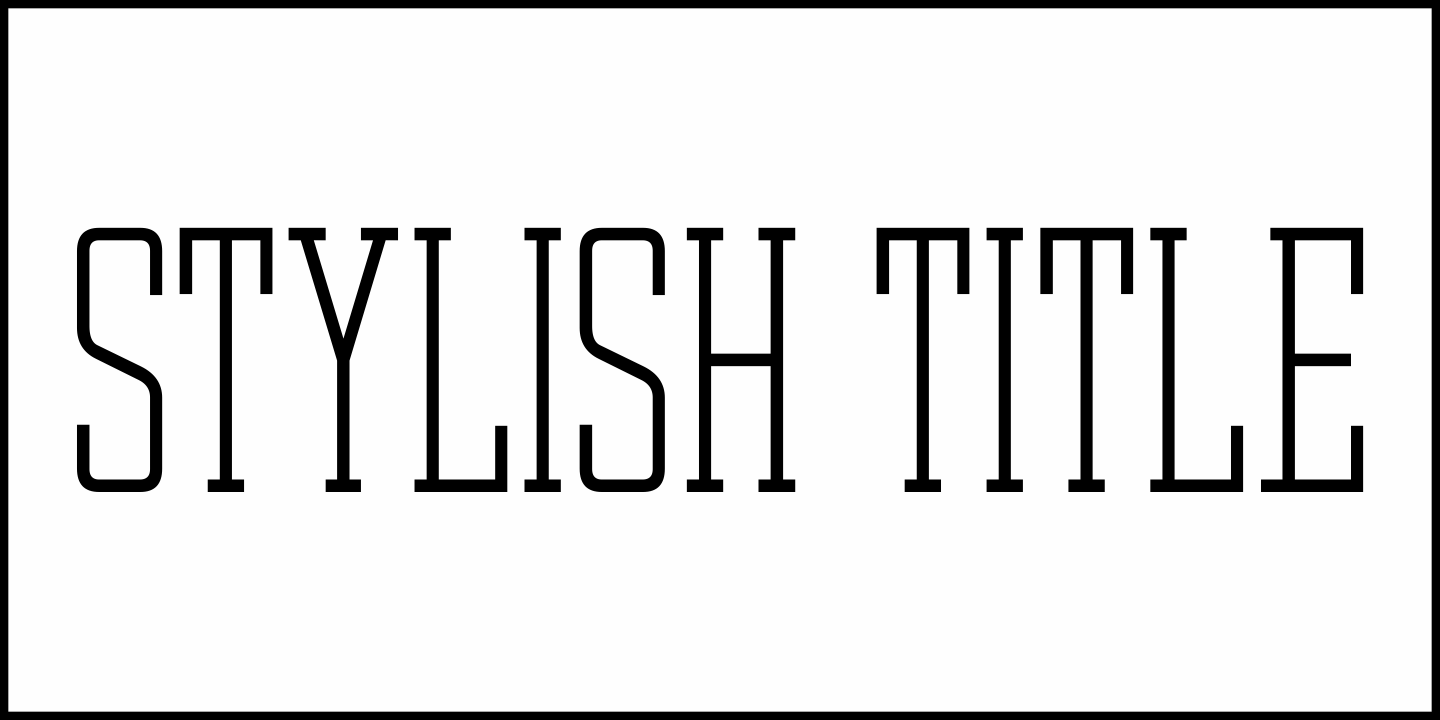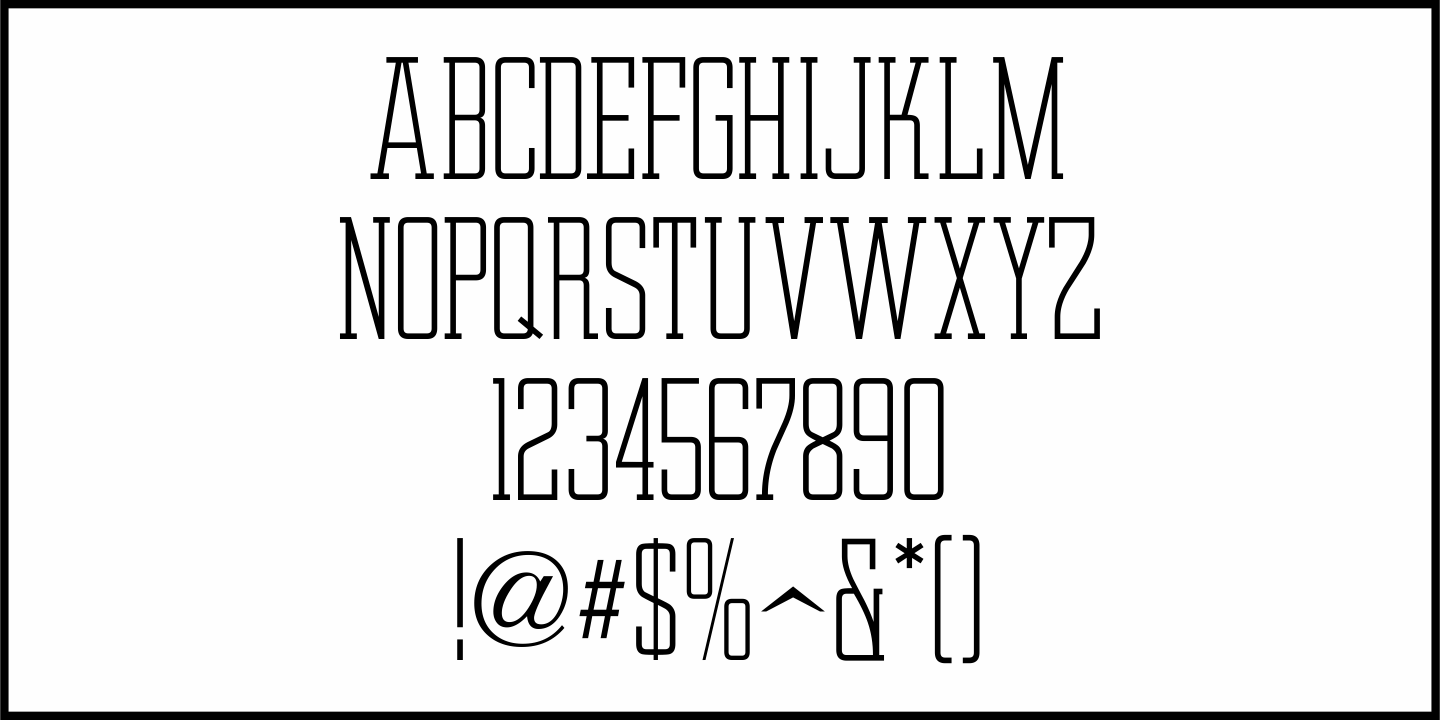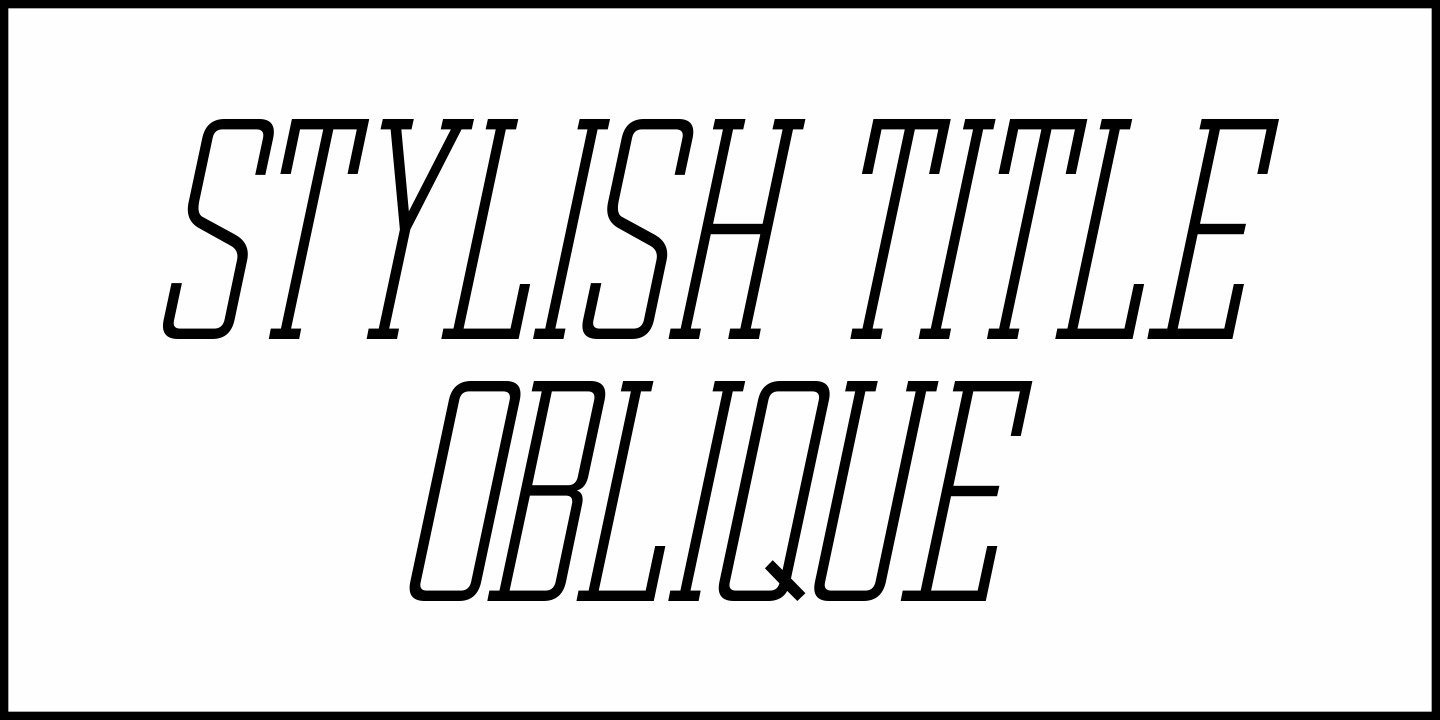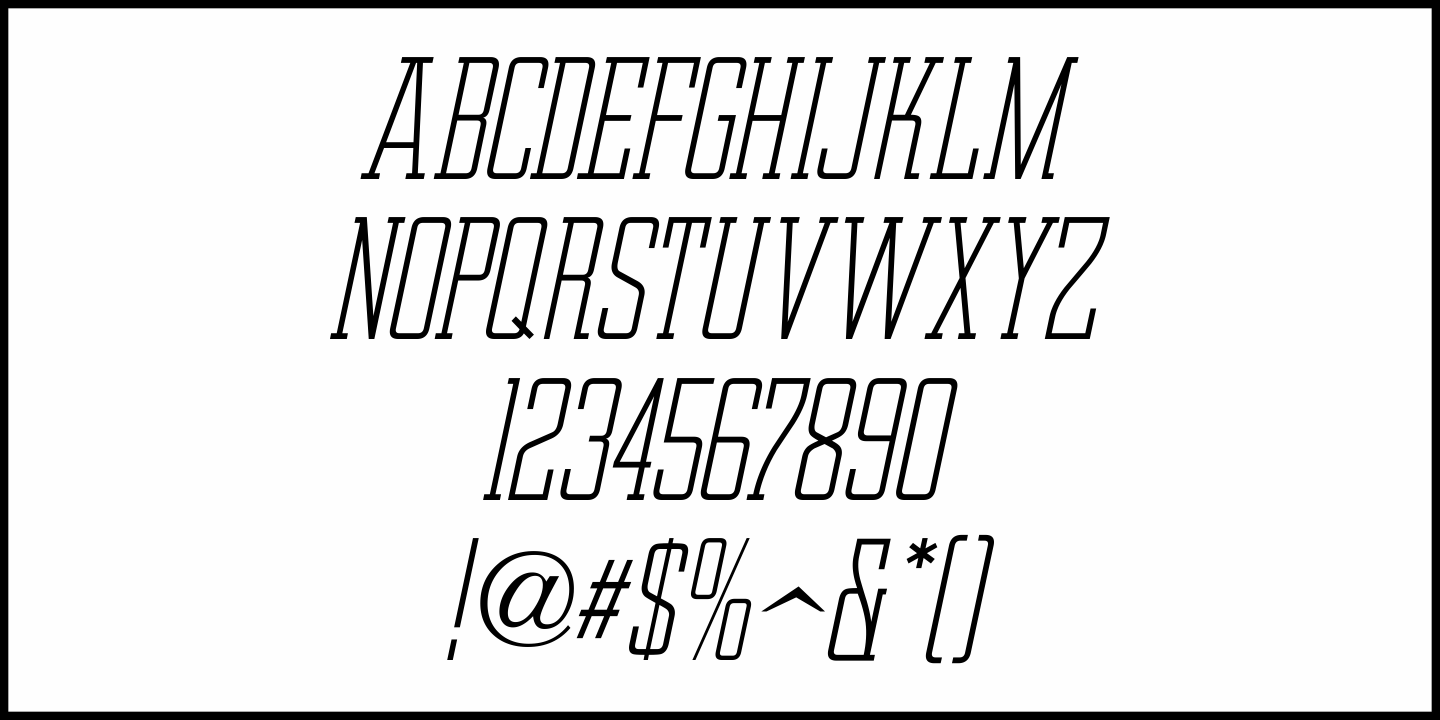
Stylish Title
The cover title for the July, 1935 issue of Harper’s Bazaar magazine was hand lettered in a condensed, squared slab serif design with a few stylized characters.
This is now available as Stylish Title JNL, in both regular and oblique versions.
For many years, each issue of the magazine had its title rendered in different type styles; offering many unique variations to coincide with that month’s cover art.
Stylish Title JNL Regular by Jeff Levine Fonts